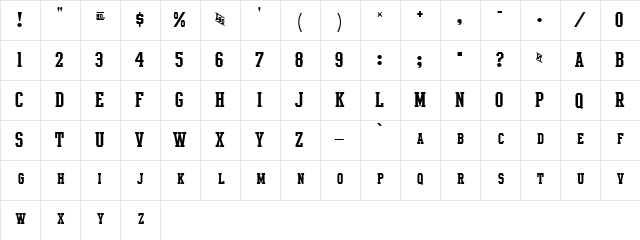
Intramural Small Caps JL Regular
Foundry: Jeff's Fonts & Dingbats
Designer: Jeff Levine from a Ray Larabie original
Design Context for Intramural Small Caps JL
Intramural Small Caps JL is a composed and adaptable typeface that performs quietly and consistently across a wide range of design contexts.